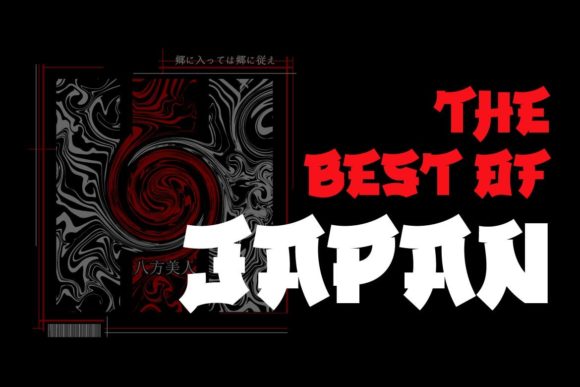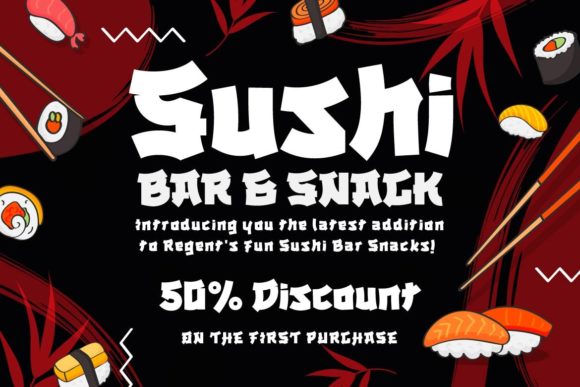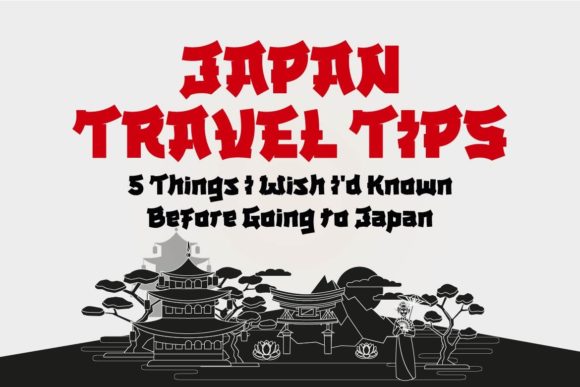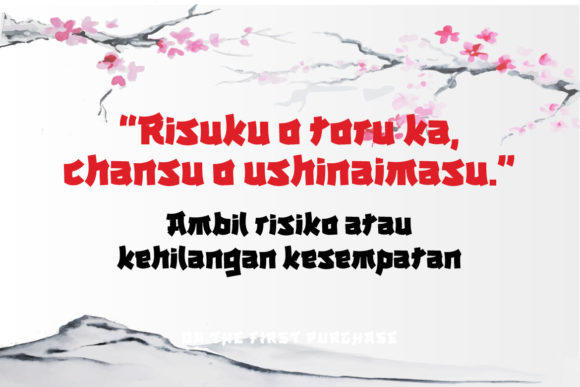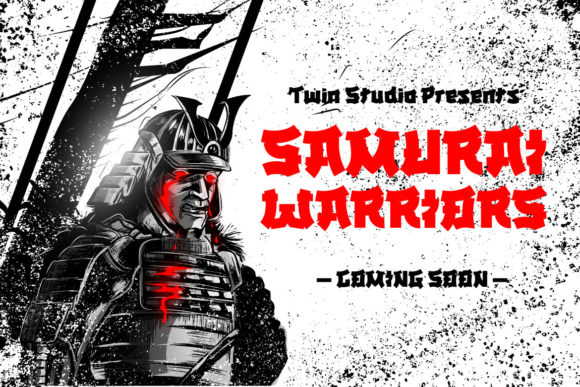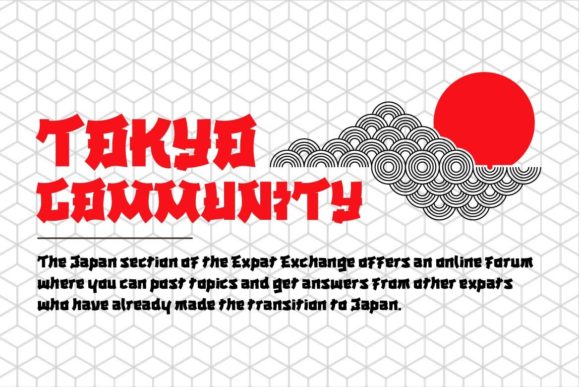
What is Dasego?
Dasego is a creative display font with an Asian theme, specifically designed to fulfill the needs of projects with an Asian flair. **It’s versatile, unique, and perfect for audiences all over the world! 🌎** This font has been a game-changer for me, and I’m excited to share my experience with you.
What I Love About Dasego ✨
- ✅ Unique and creative design that stands out from the crowd
- ✅ Perfect blend of Asian-inspired elements and modern typography
- ✅ Highly versatile and adaptable to various design projects
- ✅ Easy to read and understand, even in smaller font sizes
- ⚠️ Limited use of lowercase letters, which may not be ideal for body text
- ⚠️ Some characters may require manual kerning for optimal spacing
The Story Behind Dasego
Dasego was designed by a team of creatives who wanted to create a font that would bridge the gap between Asian-inspired design and modern typography. **The goal was to create a font that was not only unique but also versatile enough to appeal to a global audience.** The designers drew inspiration from traditional Asian typography and combined it with modern design elements to create a truly one-of-a-kind font.
| Font Name | Dasego Font |
| Author | twinletter |
Q: What is Dasego?
A: Dasego is a creative display font with an Asian theme, designed to fulfill the needs of projects with an Asian flair.
Q: Is Dasego suitable for body text?
A: While Dasego is primarily designed for display text, it can be used for body text in certain situations. However, it’s recommended to use it in larger font sizes for optimal readability.